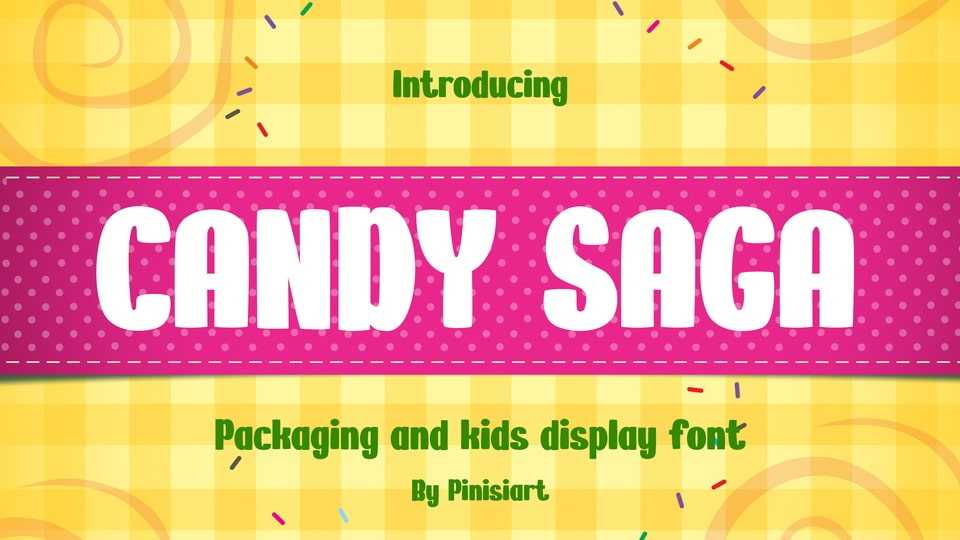
Download Candy Saga font, a packaging and kids display typeface. Suit perfectly for kids books, online games, stationary, school supplies font, poster, birthday invitation, Youtube covers, Youtube thumbnails, social media page covers and so on…